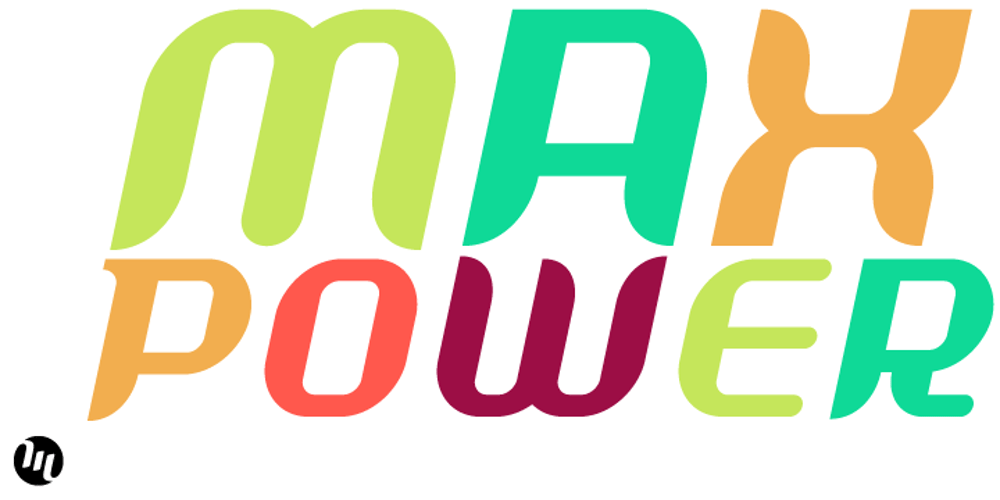
Shifty Font Family was designed by Matthew Aaron Desmond and published by MADType. Shifty contains 2 styles and family package options. Rational curves and spiky rhythms punctuate this all-caps sans face, for a plastic feeling, futuristic effect.